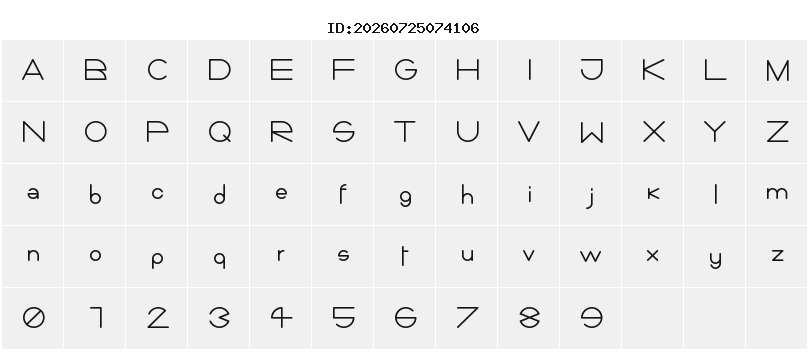
Giorgino Preview
• Font Name: Giorgino
• Font Style: Normale
• Full Font Name: Giorgino
• Version: Version 1.0 March 19, 2011, initial release
• Designer: Davide Ardissone
• Description: I made this font for my second born son Giorgio.
About Giorgino.ttf
Giorgino.ttf is a modern, elegant sans-serif font designed for ultimate readability and visual harmony. Perfect for branding, headlines, web design, and print materials.